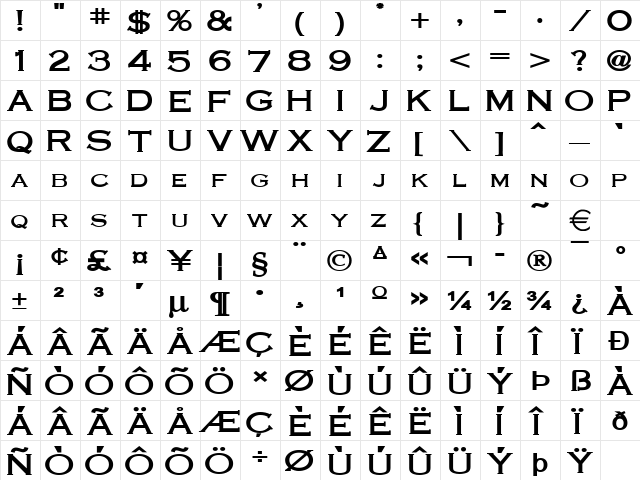
CobaltWide Bold
Design Context for CobaltWide Typeface
CobaltWide offers clean, dependable letterforms without strong stylistic allegiance, making it a practical choice for designers who need flexibility. The heavy weight commands attention and anchors typographic hierarchies.